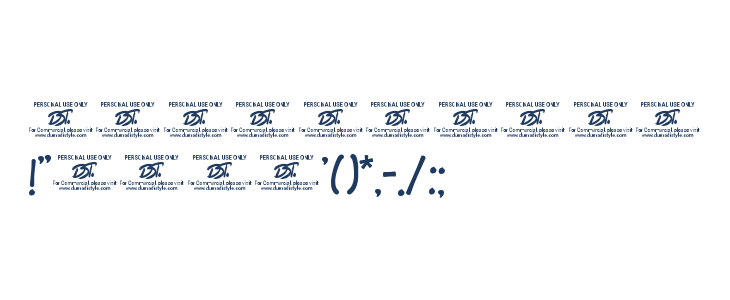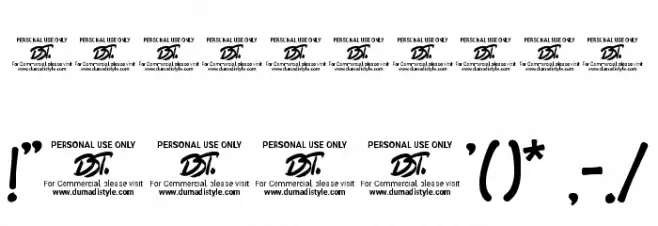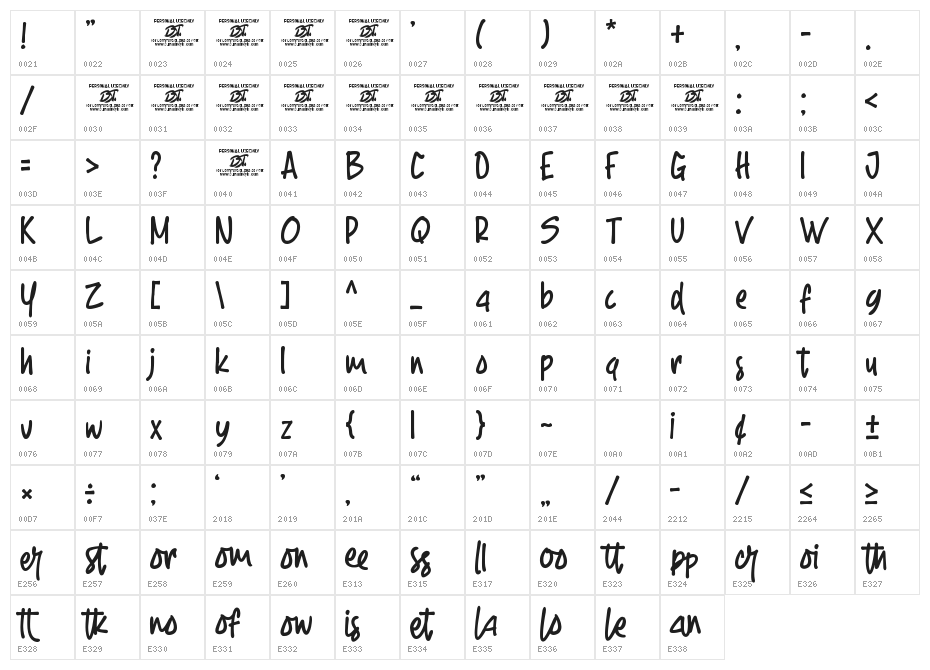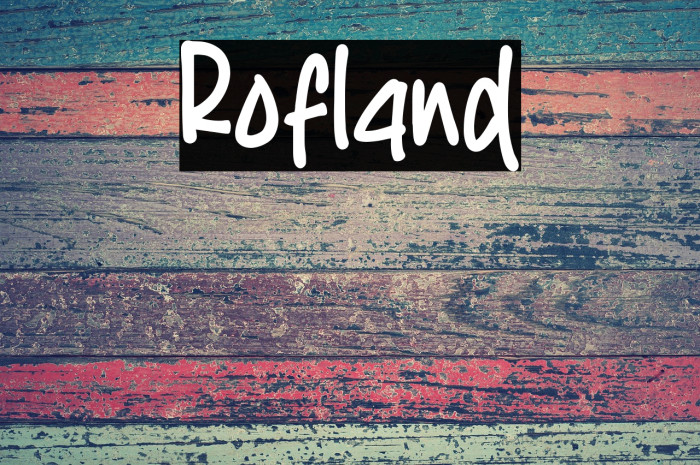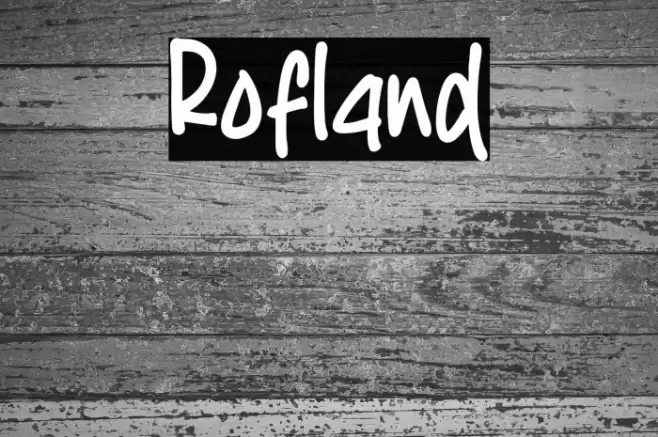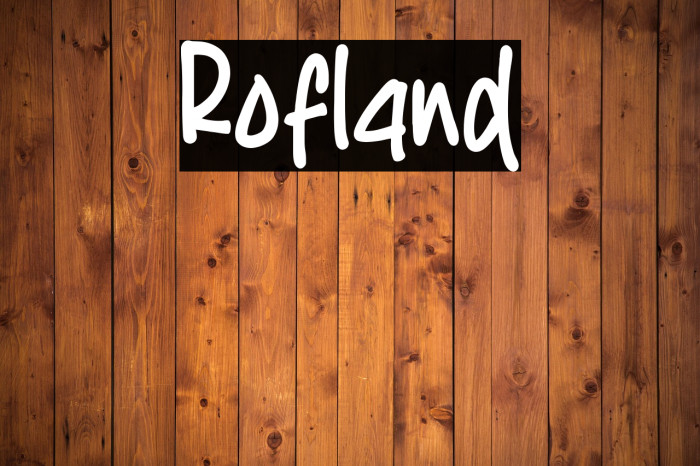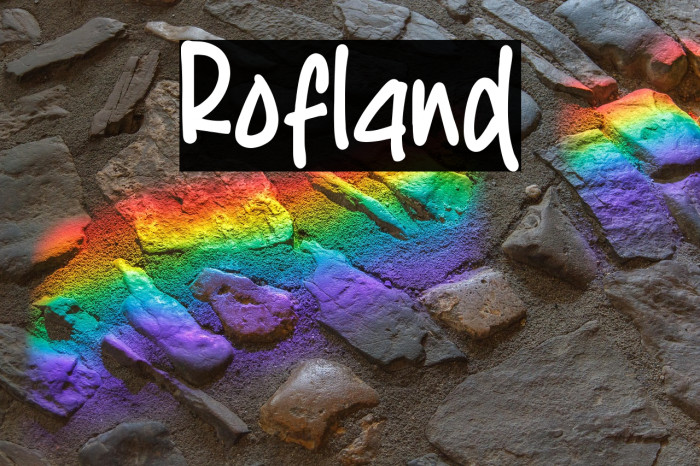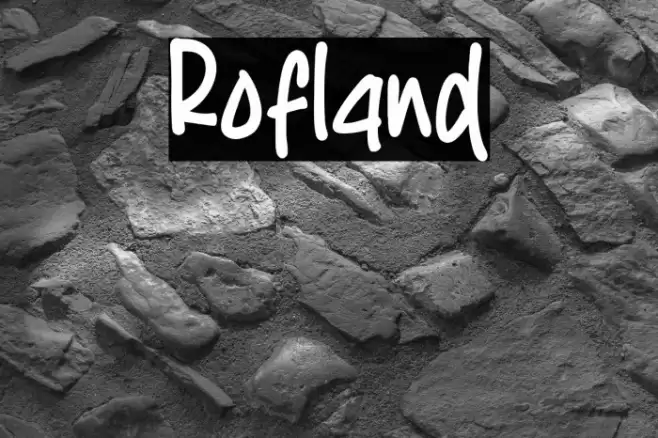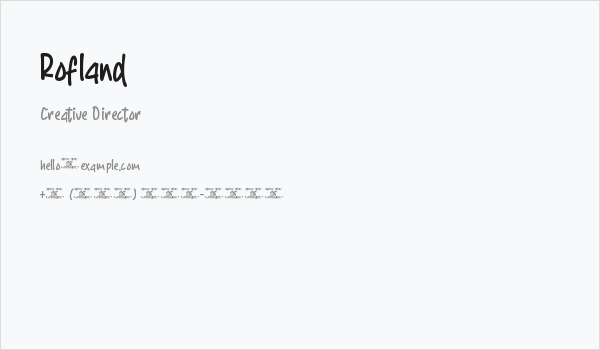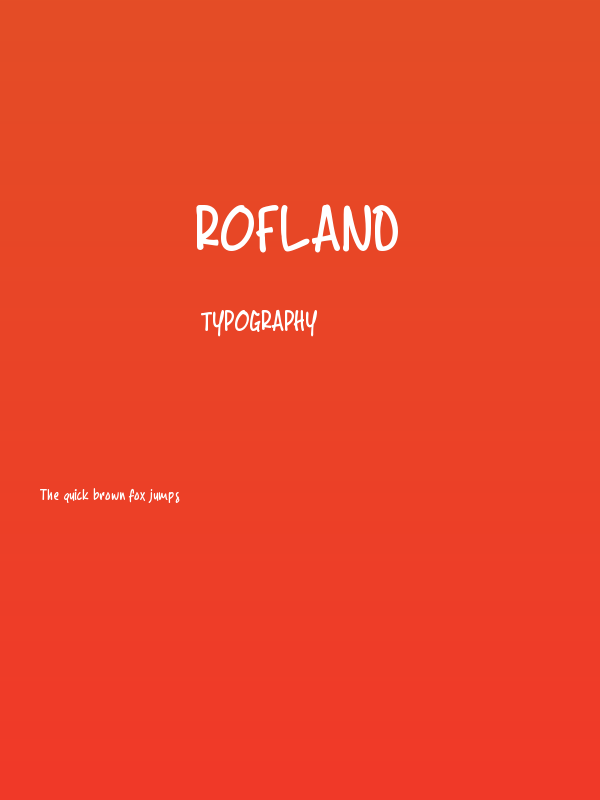
Rofland Font
Rofland Description
This font features a playful and casual handwritten style, characterized by its bold and slightly irregular strokes. The letters have a dynamic flow, with a slight slant that adds to its informal appearance. The uppercase and lowercase letters maintain a consistent style, with rounded edges and a friendly demeanor. The numbers and special characters are designed to match the overall aesthetic, making it suitable for creative and informal projects. The font's unique charm lies in its ability to convey a sense of warmth and approachability, making it ideal for personal and creative use.